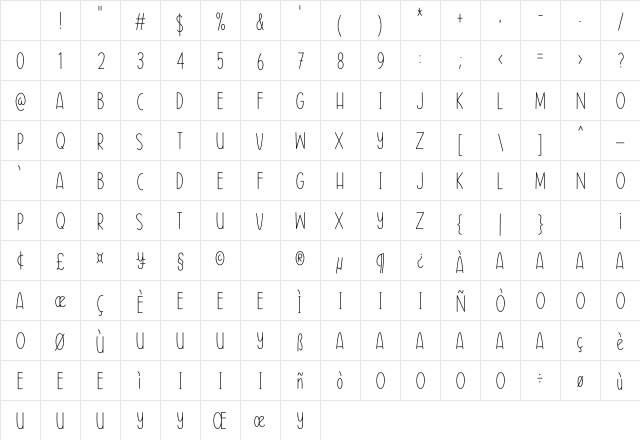
Thin Letters Regular Free Font
Thin Letters Regular
Design Context for Thin Letters
Thin Letters is a composed and adaptable typeface that performs quietly and consistently across a wide range of design contexts. Its slender proportions lend an understated elegance to any composition.